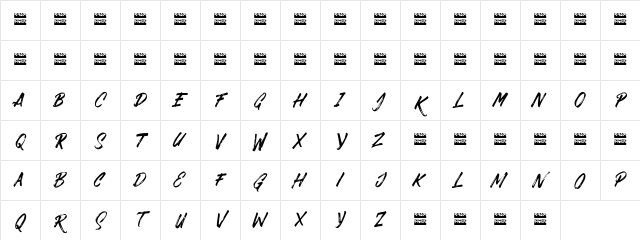
DABRUSH Regular
Design Context for DABRUSH
DABRUSH flows with the natural rhythm of handwritten lettering, making it ideal for designs that call for warmth and personal expression.
Font Pairing: Combine DABRUSH with a simple geometric sans for maximum contrast - the tension between flowing curves and clean structure is a classic typographic pairing.
Pro Tip: Use DABRUSH for short runs of text - names, titles, or taglines. Extended body copy in script faces tires the eye quickly.